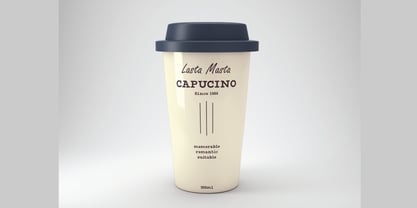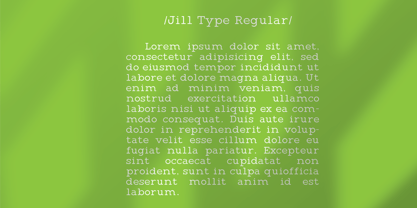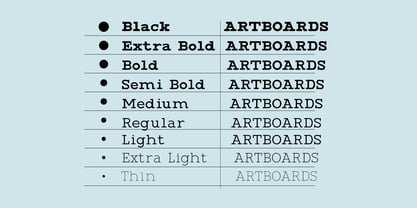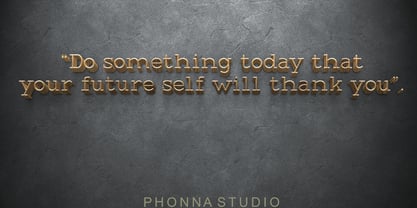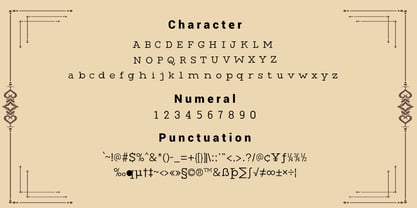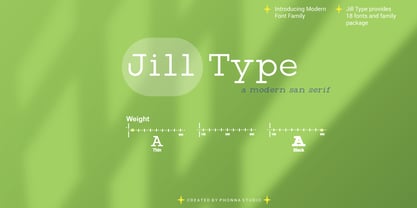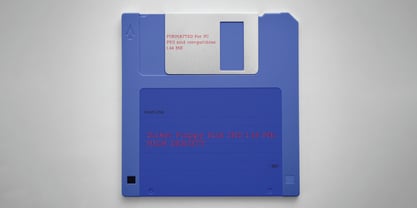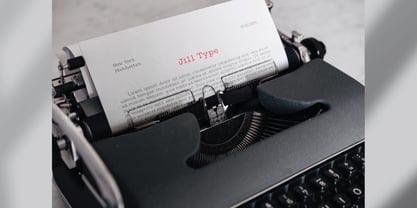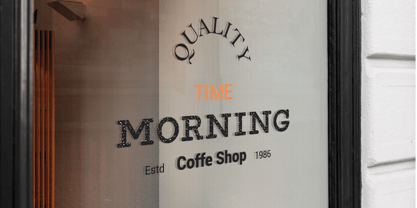
Jill Type
by Phonnastudio
The Jill Type Font Family was designed by Muhammad Suhery and published by Phonnastudio. Jill Type contains 9 styles and family package options.
Introducing Jill Type, a modern sans-serif font family inspired by the friendly typewriter sans to bring the nostalgia of classic. Jill is designed for clarity, legibility, and visual comfort in a wide variety of creative projects. Jill Type provides 9 families of the font.
Designers: Muhammad Suhery
Publisher: Phonnastudio
Foundry: Phonnastudio
Design Owner: Phonnastudio